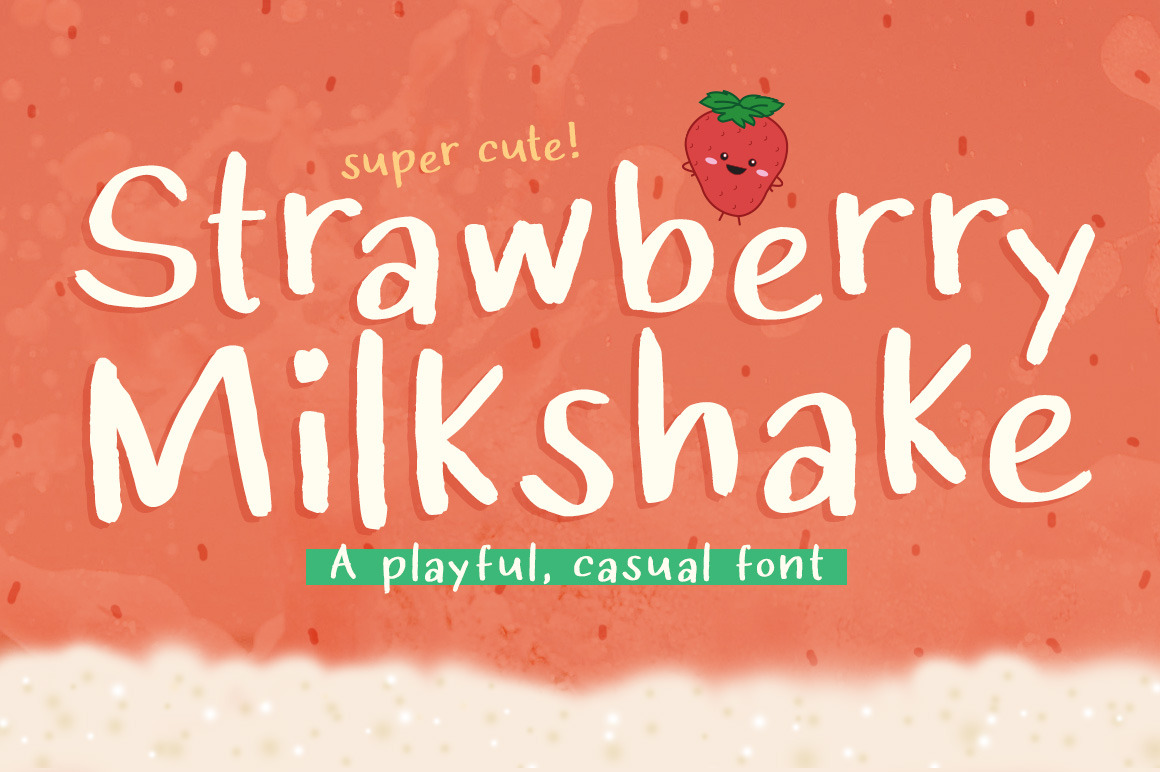
Strawberry Milkshake Font
Strawberry Milkshake is a cute, playful font that looks as if it was drawn with a marker. It has a dynamic baseline that gives you bouncy and fun letters to give the right handwritten and energetic yet casual vibe to your design projects.
- All uppercase
- All lowercase
- Numerals and punctuation
- European language characters